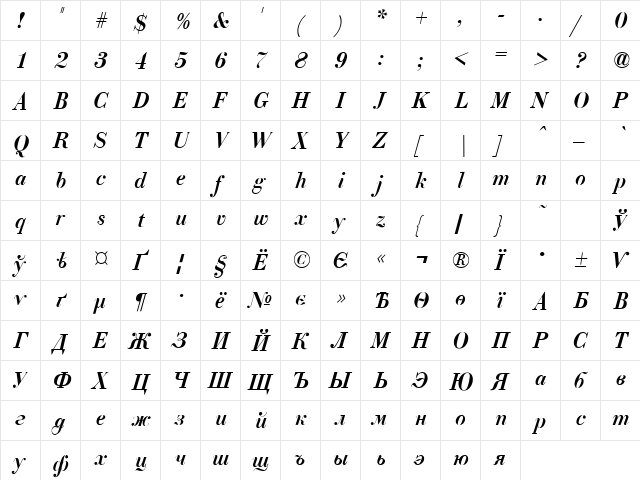
ELIZii_A.Z_PS Medium-Italic
Design Context for ELIZii_A.Z_PS Typeface
ELIZii_A.Z_PS is a composed and adaptable typeface that performs quietly and consistently across a wide range of design contexts. The dynamic lean of this cut emphasises speed and emphasis in any layout.
Pro Tip: Try ELIZii_A.Z_PS for annotation and caption copy alongside an upright companion — the contrast in angle creates a dynamic but ordered typographic system.